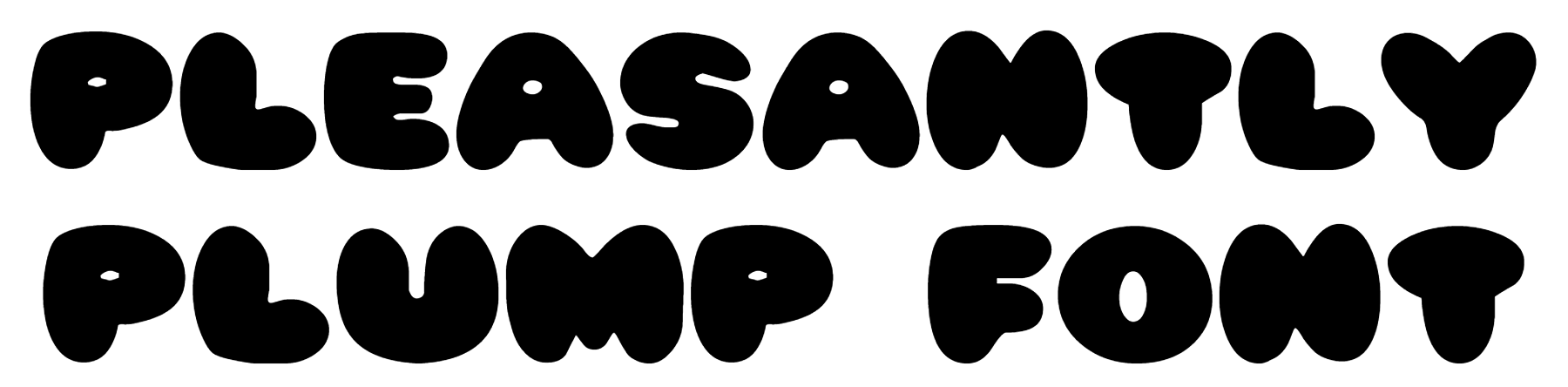
Pleasantly Plump
Pleasantly Plump is a cartoon font (1994). Its bouncy, rounded letters feel playful, like lettering from a cartoon or a comic book. It's a free download, and you can try it with your own text in the preview above first.
What You Can Type With Pleasantly Plump
With complete upper and lowercase letters and all ten digits, Pleasantly Plump is ready for real wording, not just a single headline. Common punctuation such as &, !, ? and @ is included as well. It doesn't include accented letters such as é or ñ, which makes it an English-only font.
Where Pleasantly Plump Works Best
Pleasantly Plump is a natural fit for kids' books, birthday invites and fun YouTube thumbnails. The file has no kerning data, so in logos and big titles check pairs like AV, To and Wa and tighten the spacing by hand. Cartoon fonts are great for short, fun lines. If you place it over a busy photo, add a thick outline or a drop shadow so it stays readable.
Does Pleasantly Plump support accented letters?
No. Pleasantly Plump has no accented letters such as é, ñ or ü, so it's best for English text.